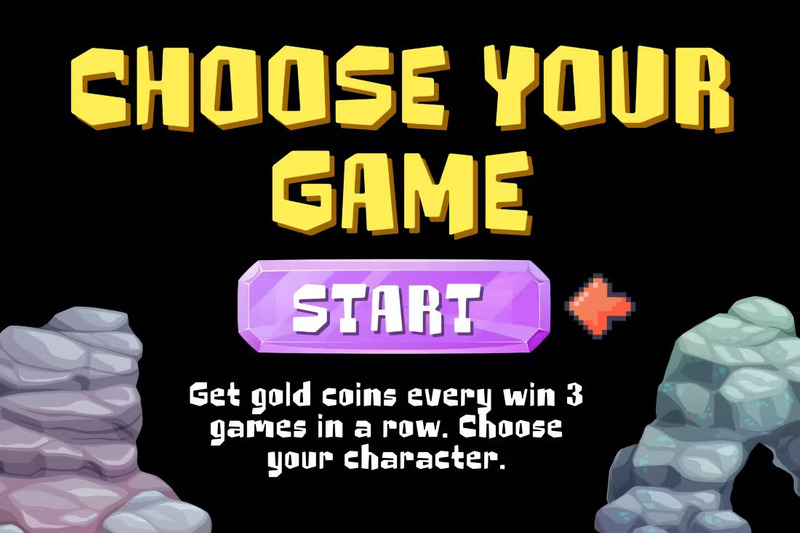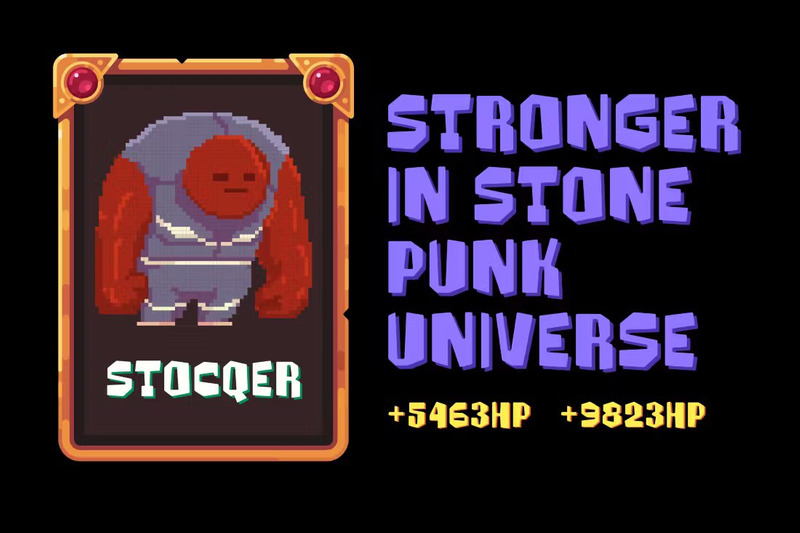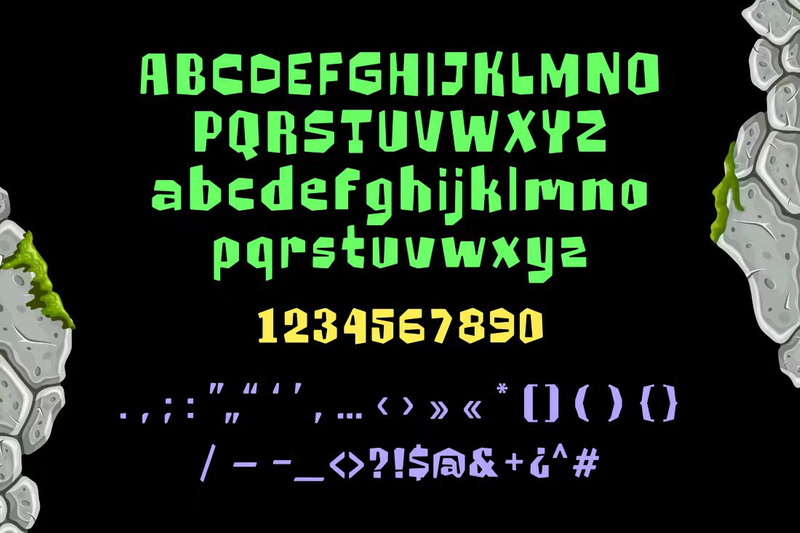
Stone Punk - Playful Display Font
Introducing Stone Punk, the font that brings a playful twist to your design projects. With its bold, blocky letters, this retro-inspired typeface is a must-have for any gaming enthusiast or creative looking to inject some fun into their work. Stone Punk is not your average font; it's a gaming powerhouse that commands attention with its fat, bold characters.
Whether you're designing a user interface for a video game, crafting a poster for a gaming event, or simply seeking a creative edge, Stone Punk has you covered. Its unique style adds a touch of nostalgia while keeping your designs fresh and exciting. Get ready to level up your creative projects with Stone Punk - the font that turns every design into a gaming adventure. Grab it now and let the fun begin!